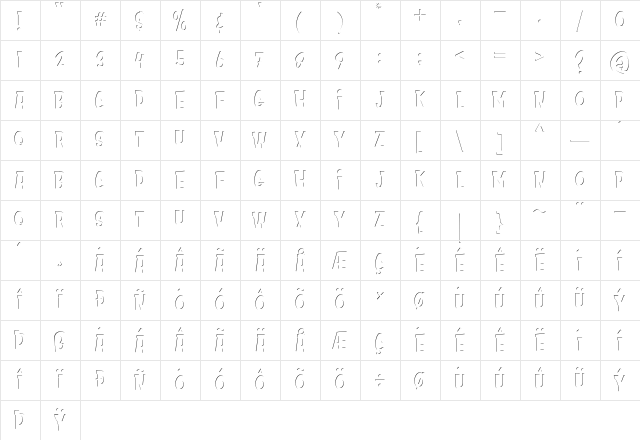
Kids Zone Inner Regular Font Preview
Kids Zone Inner Regular
Kids Zone Inner Regular Font Details
| Designer | figuree 2019 |
Design Context for Kids Zone Inner Typeface
Kids Zone Inner trades formality for fun, with bouncy, characterful letterforms that bring warmth and energy to any project.
Font Pairing: Pairs well with a rounded or humanist sans for body copy, maintaining the friendly tone without relying on Kids Zone Inner to carry extended reading.
Pro Tip: Avoid using Kids Zone Inner for long passages of text — it works best for headlines, labels, and short calls to action.